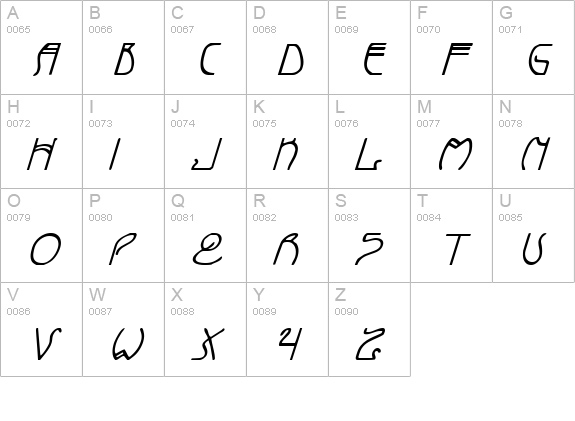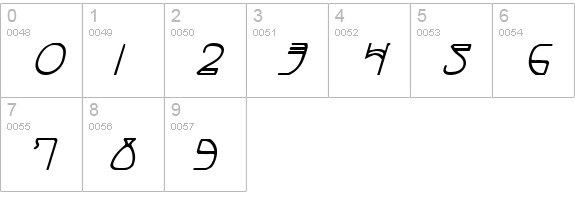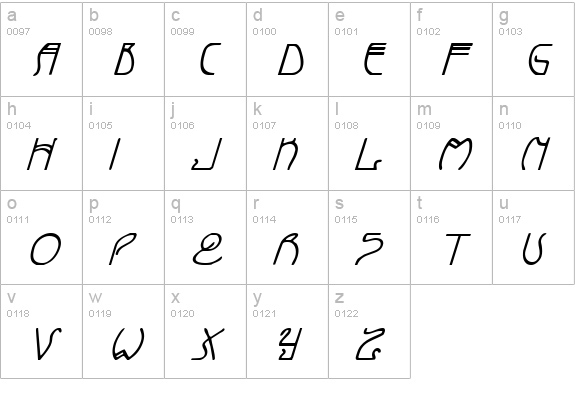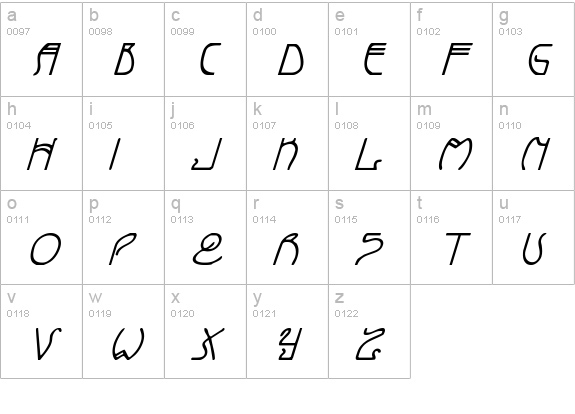
Coyote Deco Italic is a distinctive, italic variant in the Coyote typeface family \xE2\x80\x94 well suited to design and typography projects.
Coyote Deco Italic font exudes a sense of playful sophistication and artistic flair with its elegant and unique design. The italic style adds a touch of modernity and creativity to any project, making it perfect for eye-catching headers, invitations, or branding materials. The flowing lines and delicate curves of this font create a sense of movement and energy, drawing the viewer's attention and making a lasting impression. Best of all, Coyote Deco Italic font is available for free download at FontsMarket.com, allowing you to add a touch of charm and personality to your designs without breaking the bank. Whether you're a seasoned designer looking to spice up your projects or a beginner exploring the world of typography, this font is sure to inspire and delight. Don't miss out on the opportunity to enhance your creations with the beauty and versatility of Coyote Deco Italic font - download it today and let your creativity soar!